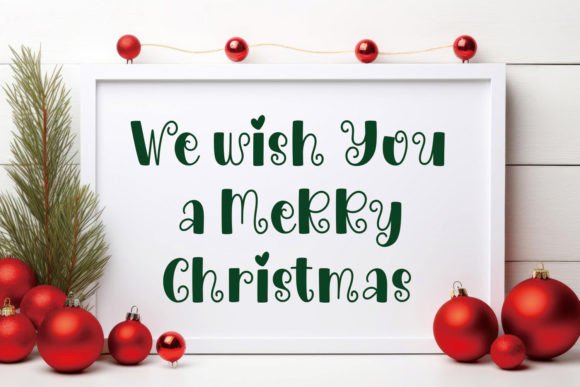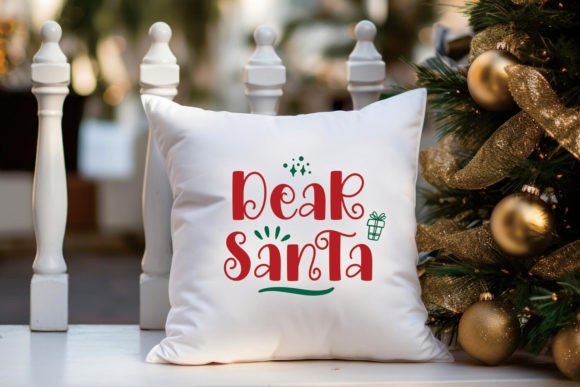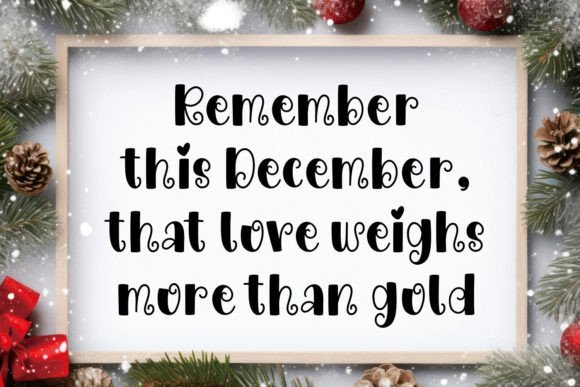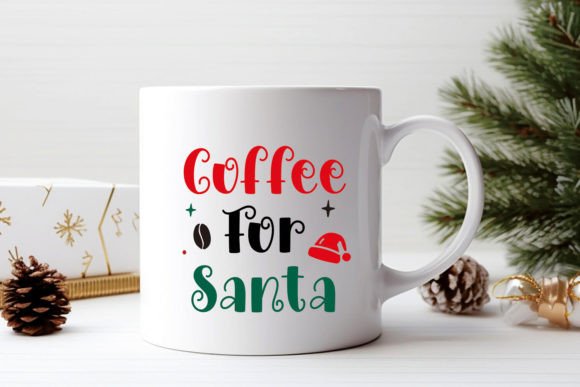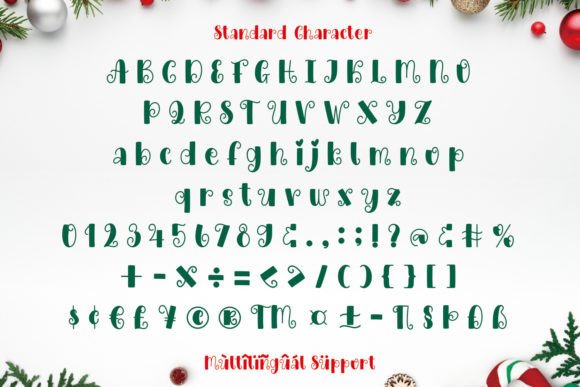
Sweet Christmas Font
Get into the holiday spirit with the Sweet Christmas font! This handwritten script embodies the joy of Christmas, Thanksgiving, and the holidays. Perfect for your cards, decorations, and craft projects, it adds a festive touch effortlessly. Bring warmth to your messages and designs with its playful yet elegant style.
Spread the cheer this season! Use the Sweet Christmas font to create charming greetings, decor, and crafts. Its whimsical strokes and cozy feel will make your holiday creations shine. Don’t miss out—add this font to your lettering, embroidery, and designs to make your holidays even more magical.
Elevate your holiday creations today! Incorporate the Sweet Christmas font into your projects for that extra dose of holiday magic. With its versatile charm, it’s the perfect choice for expressing joy and celebrating the season. Make your cards, decorations, and crafts sparkle with the Sweet Christmas font!